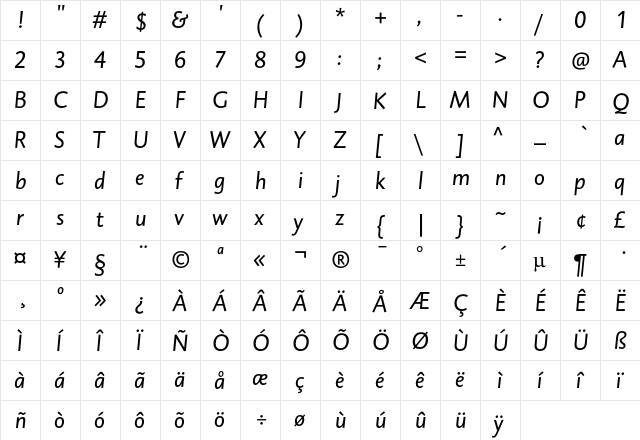
DTL Caspari T Italic
Design Context for DTL Caspari Typeface
DTL Caspari is a composed and adaptable typeface that performs quietly and consistently across a wide range of design contexts. The slanted form adds forward momentum and visual energy.
Pro Tip: Use DTL Caspari for emphasis, pull quotes, and subheadings where its slanted energy can add rhythm to the layout.